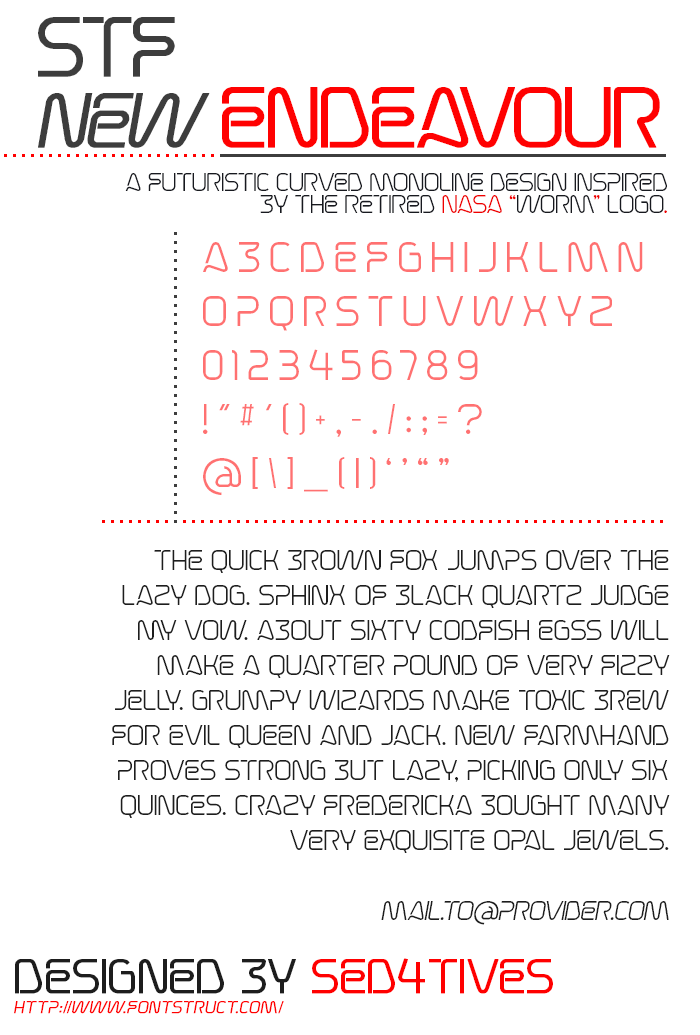
Slightly adjusted kerning for "AVAYAMVMYWADYDV" and increased letterspacing a bit.
gotta appreciate the kerning lol
The @ symbol look a bit strange but that is my only critisism, great font
@ _-=-_ Yes, I agree with you, it is not fully in harmony with the overall character set.
I might revisit it soon!
Changed it!